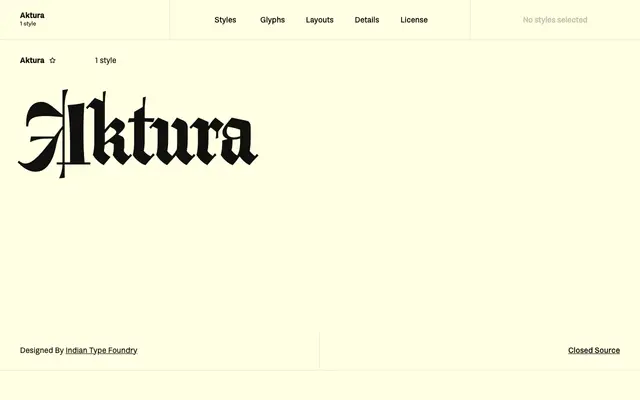
Aktura
A single-weight blackletter by Gaetan Baehr pairing textura-style gothic lowercase letters with ornate lombardic capitals, reviving a historical style-mixing convention.
The lowercase follows the close-packed vertical strokes of textura gothics familiar from newspaper nameplates and diploma lettering, while the uppercase draws on the decorative swash forms of lombardic initials. The foundry notes the pairing echoes a pre-printing-press convention, where lombardic caps served as uppercase counterparts to gothic minuscules. Best suited to display settings, posters and logotypes rather than running text, and the elaborate caps work particularly well as drop capitals alongside serif body typefaces.
Aktura combines traditional textura-style gothic lowercase forms with ornate lombardic capitals, a historically attested pairing. The foundry categorises it as Serif, Blackletter, Display.